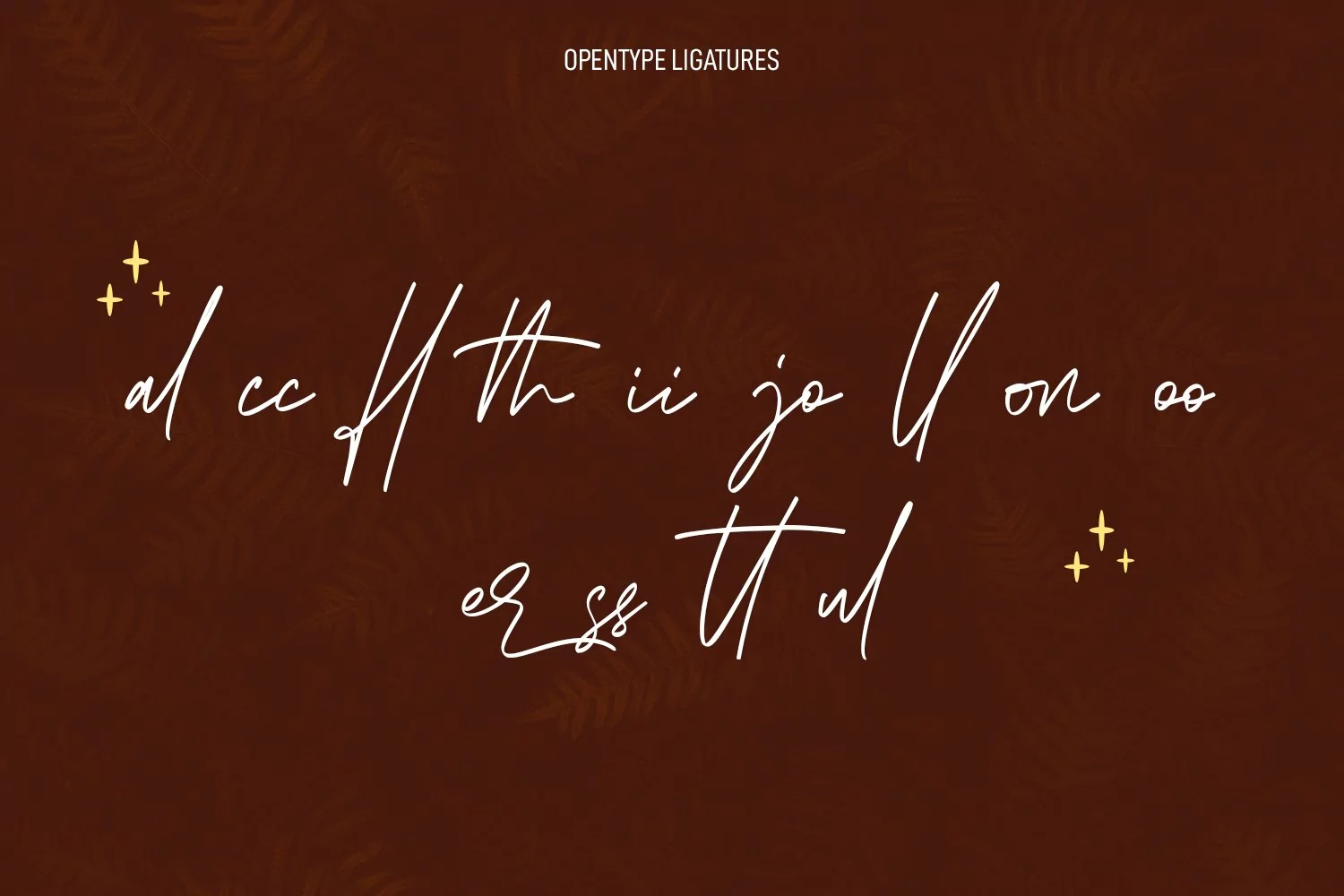
Mellowly is an expressive signature script font. With high contrast stroke, Tall and fun character with a bit of ligatures and alternates. To give you an extra creative work. Mellowly font support multilingual more than 100+ language. This font is good for logo design, Social media, Movie Titles, Books Titles, a short text even a long text letter and good for your secondary text font with sans or serif. Make a stunning work with Mellowly font.